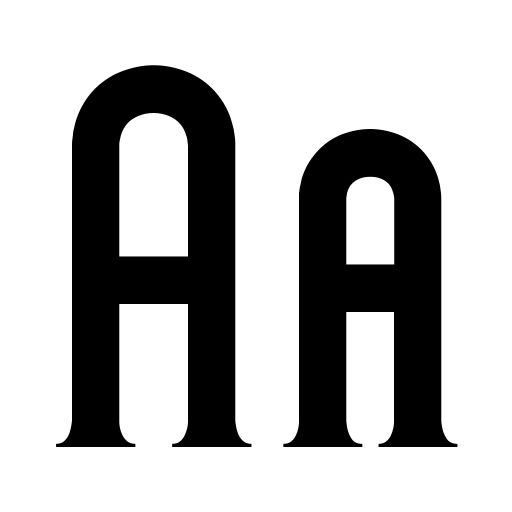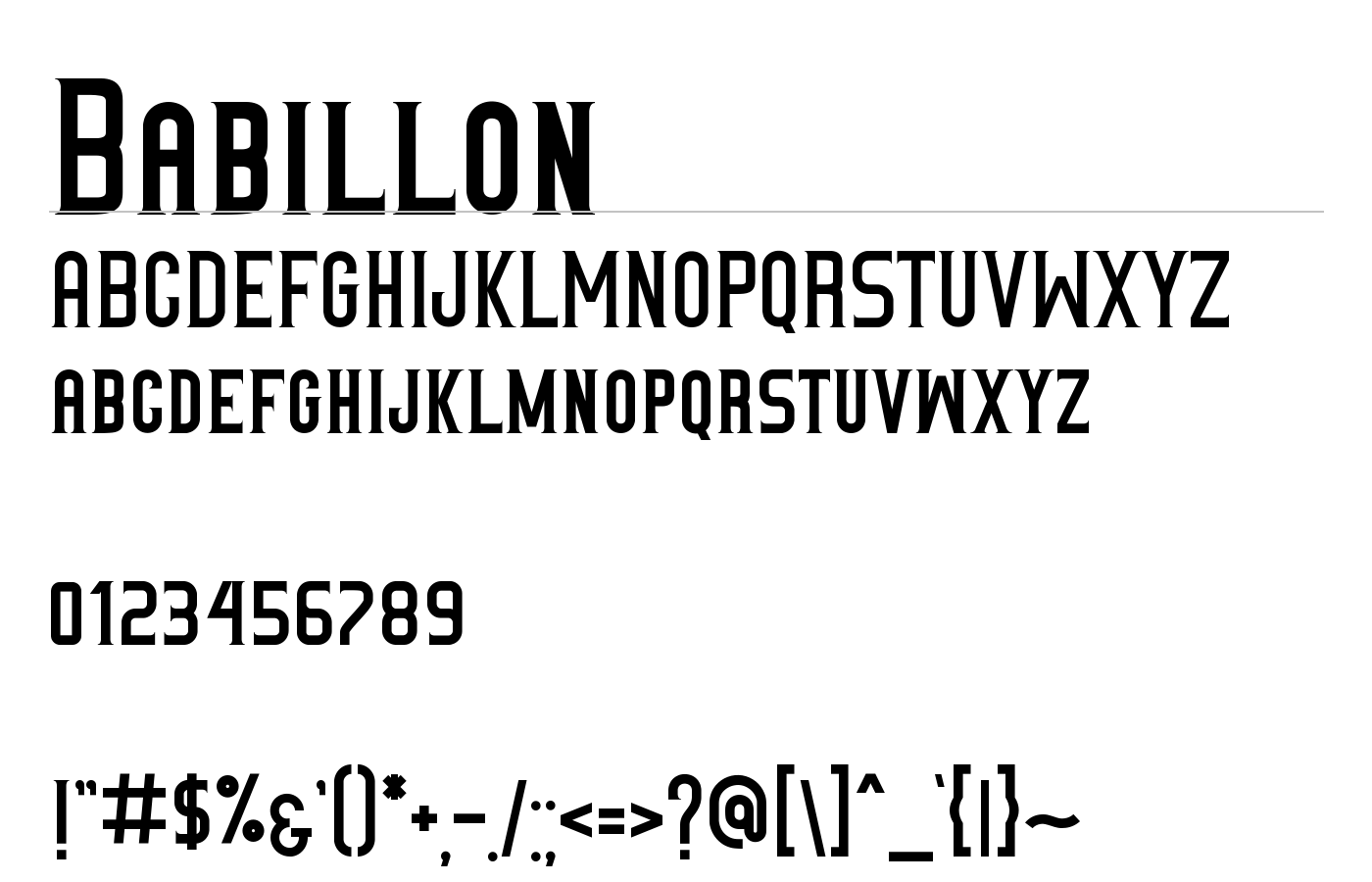
Babillon is a bold, condensed serif font with a strong vertical emphasis and subtle bracketed serifs, giving it a distinctive vintage yet modern feel. Its tall x-height and consistent stroke weight create a dramatic, authoritative look ideal for impactful headlines, branding, and editorial design where a blend of elegance and strength is desired. This font works especially well in fashion or luxury contexts, adding a touch of sophistication and style to any visual presentation.
Babillon Font
About Babillon Font
| Font family | Babillon Font |
| Designer | Fadli Ramadhan Iskandar - Letterseal Studio |